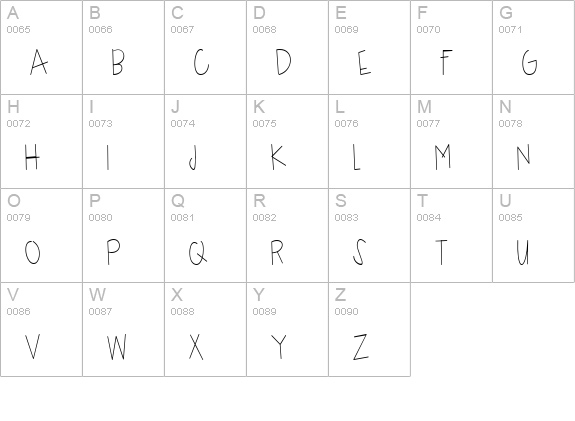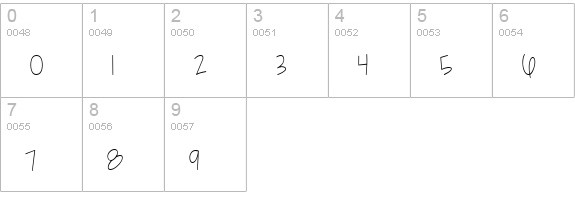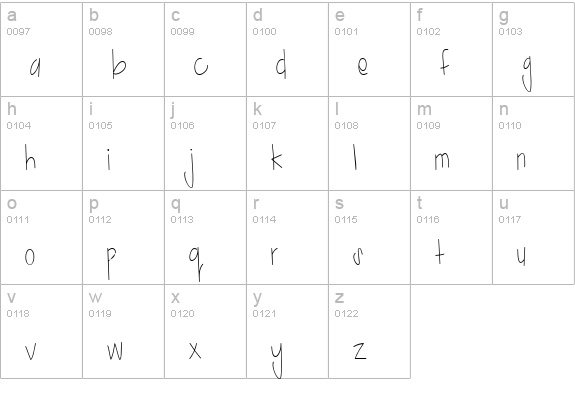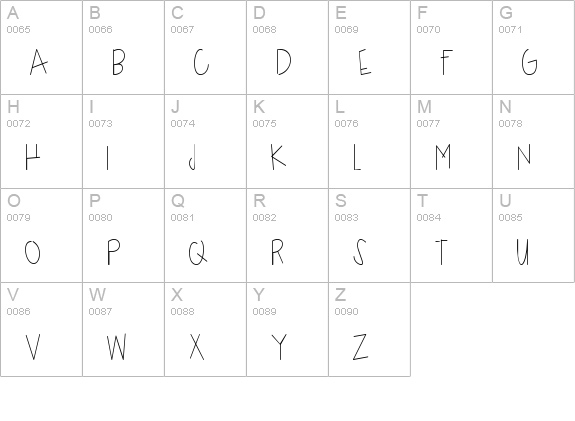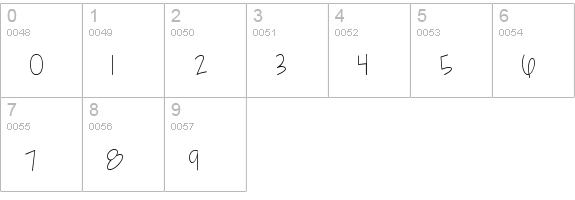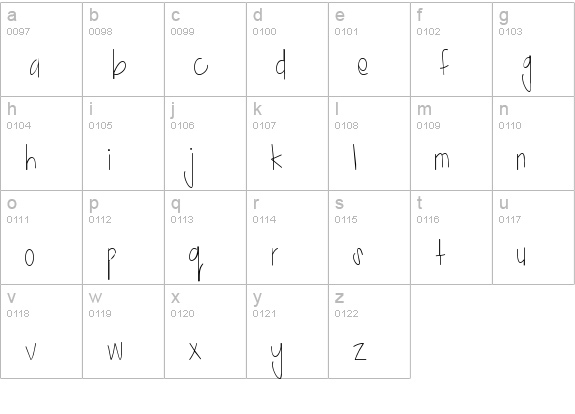
CK Growing Up Font Details
The CK Growing Up font is a charming and versatile typeface that exudes a sense of youthful energy and nostalgia. With its playful yet elegant design, this font is perfect for a wide range of creative projects, from branding to marketing materials to social media graphics. Its unique letterforms and whimsical flair make it stand out from the crowd and add a touch of personality to any design. What's even better is that the CK Growing Up font is available for free download at FontsMarket.com! Yes, you read that right - you can easily access this delightful font without spending a penny. So why wait? Add a touch of whimsy and creativity to your projects with the CK Growing Up font today!